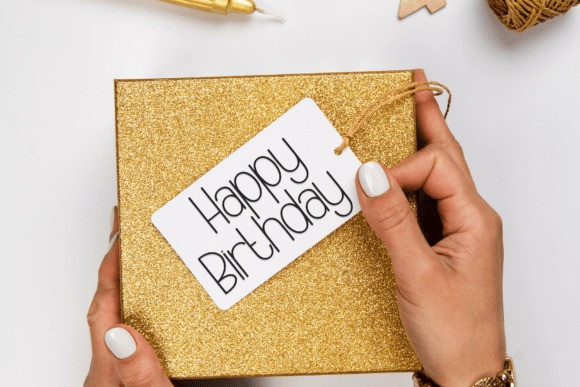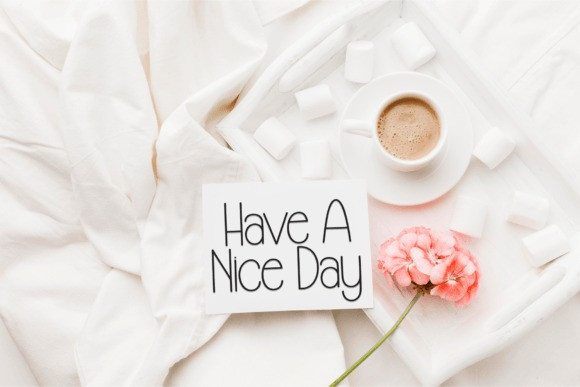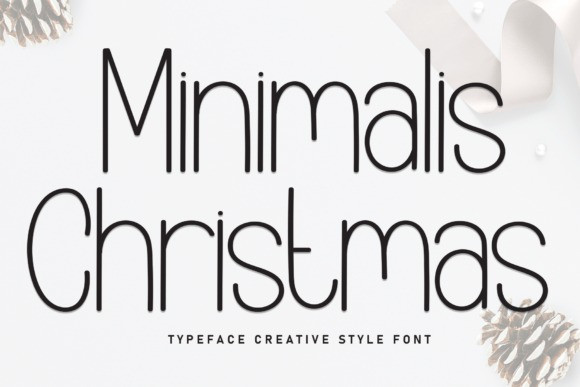
Minimalis Christmas Font
Minimalis Christmas Font is a sweet and friendly handwritten display font. Cute and fun, this font is ideal for writing wedding invitations, cards, or any other design that might need a fun touch!